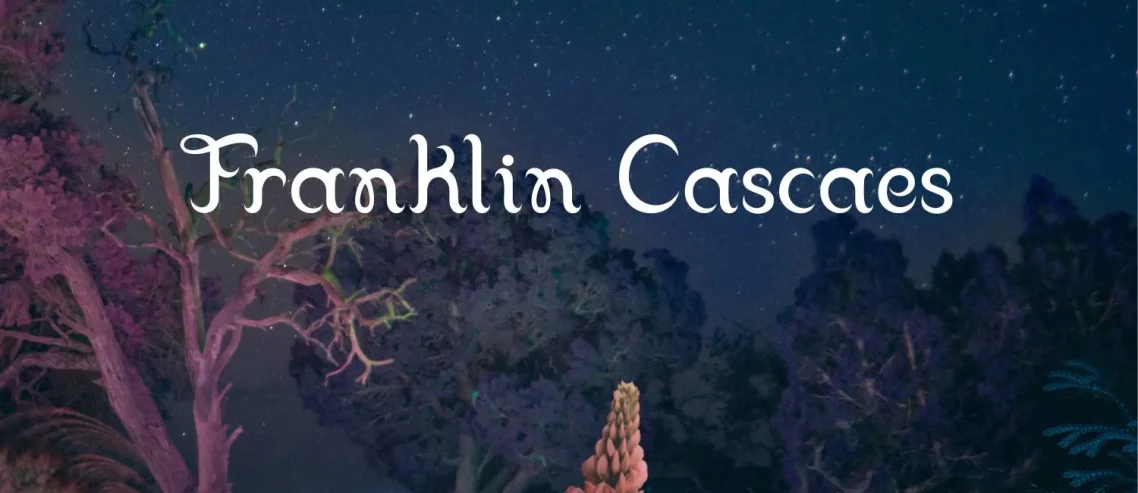
Franklin Cascaes Font is a splendid typeface that comes from the fancy font family. This marvelous typeface was designed by a well-known typographer named Mitsue Yanai. There are more than one lac downloads on this typeface.
View of Franklin Cascaes Font
Franklin Cascaes Font Info
Name | Franklin Cascaes Font |
Designer | Mitsue Yanai |
Style | Fancy |
Font Family
- Franklin Cascaes Regular